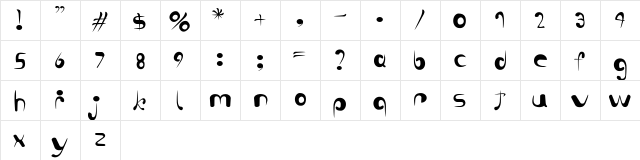
ruculus Regular
Design Context for ruculus Typeface
ruculus is a composed and adaptable typeface that performs quietly and consistently across a wide range of design contexts.